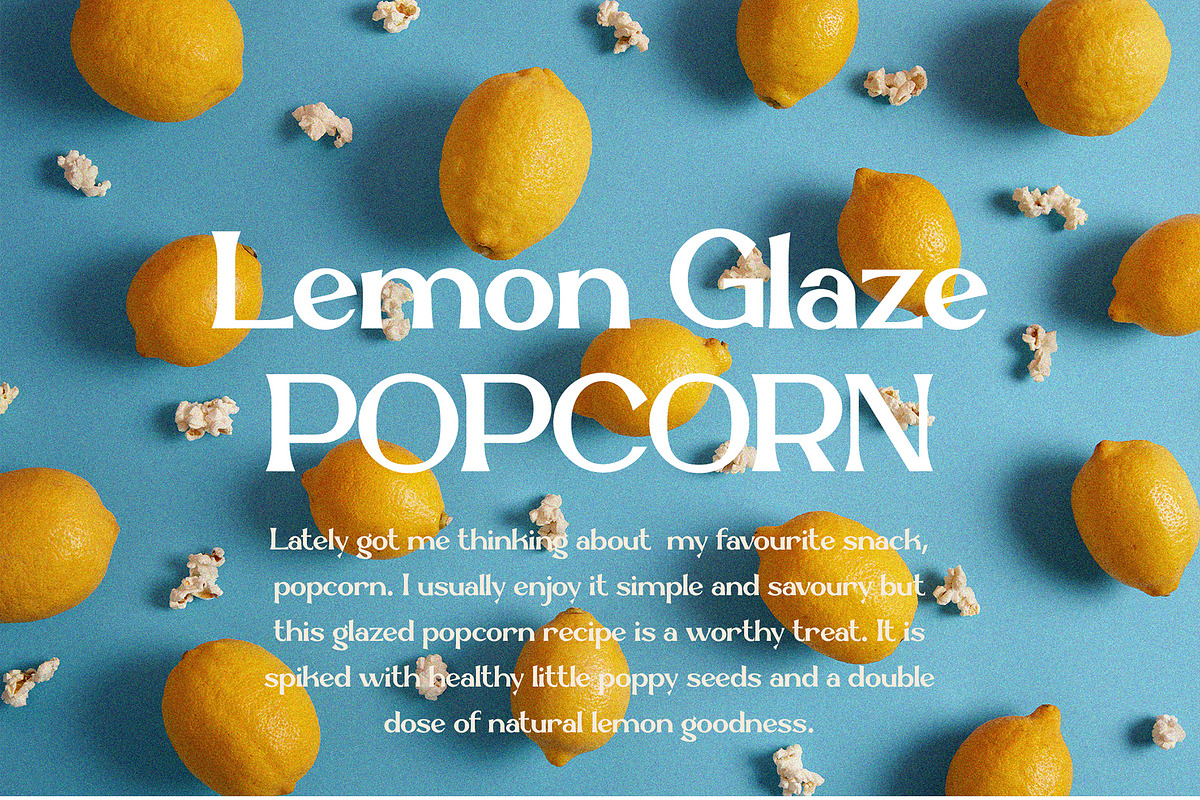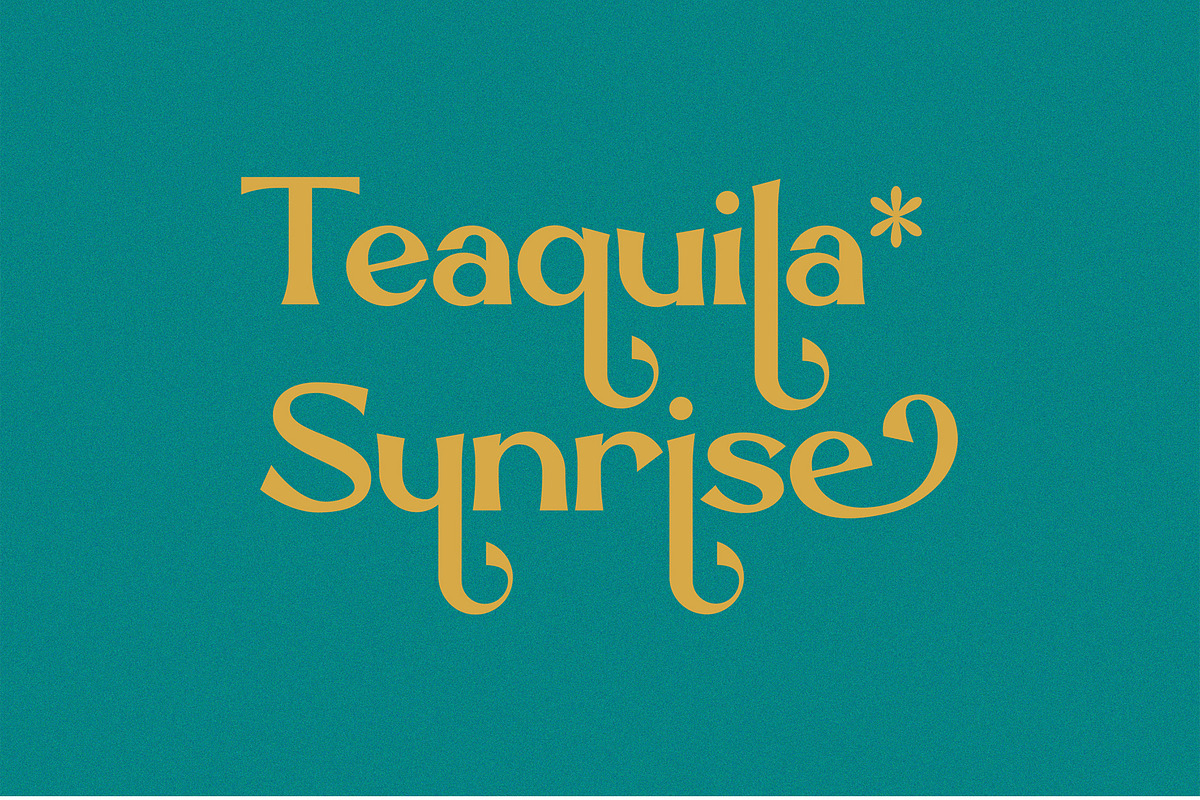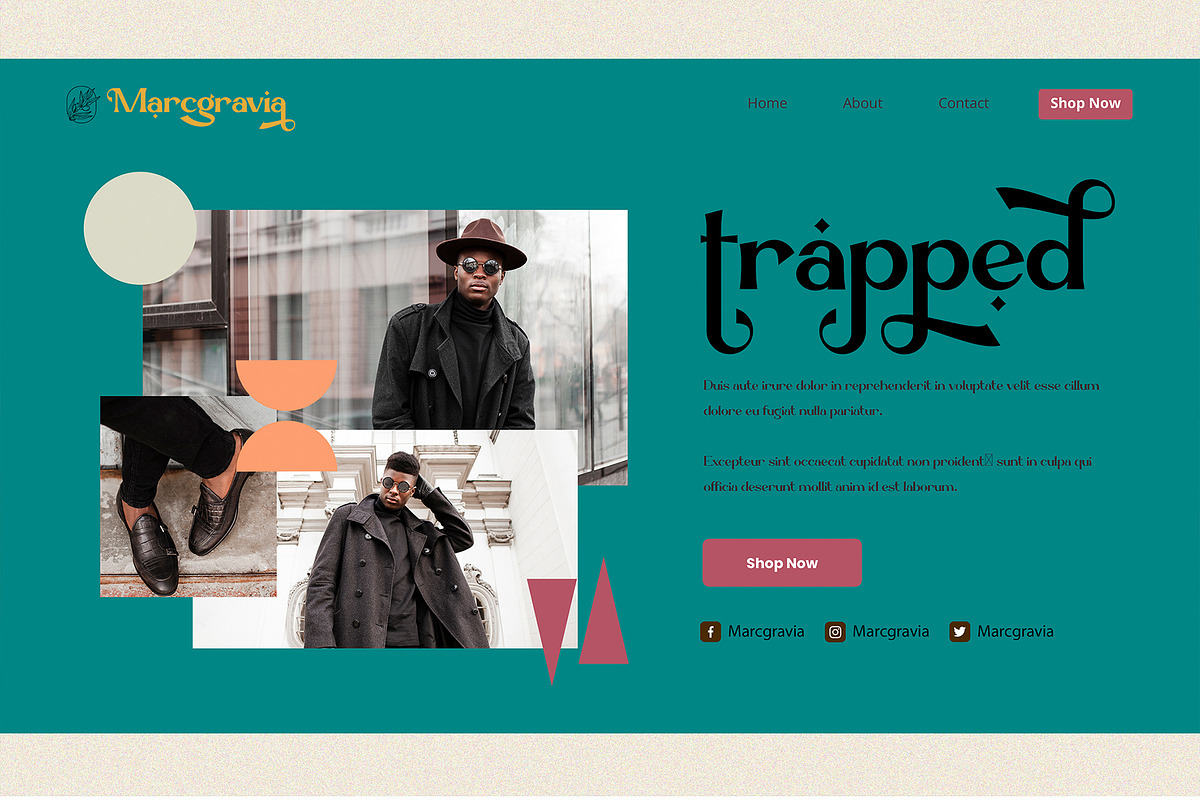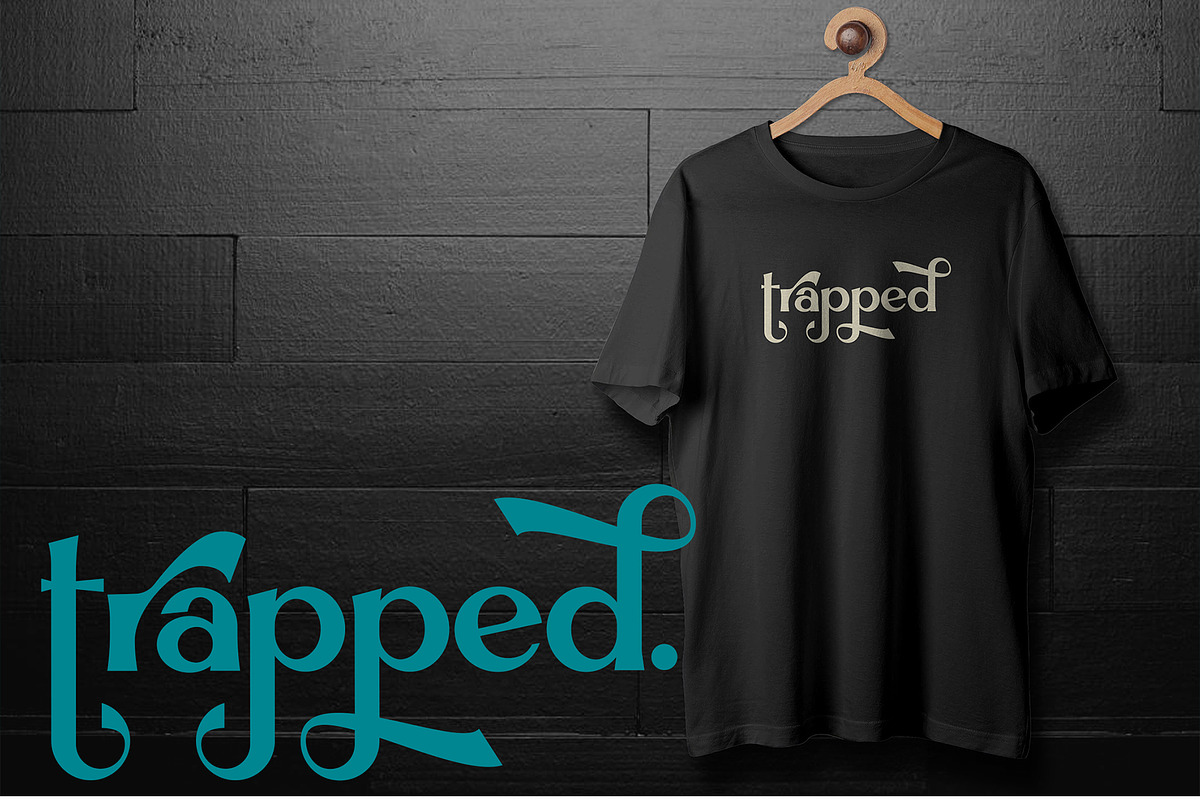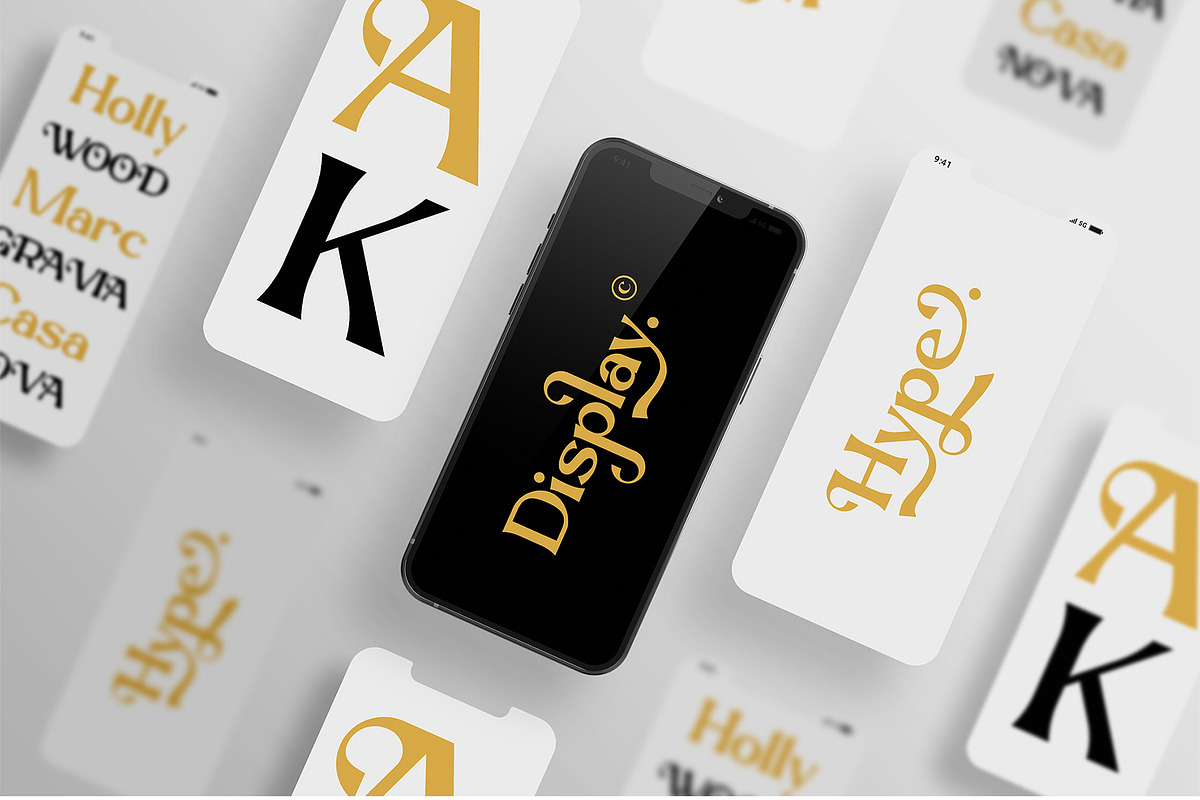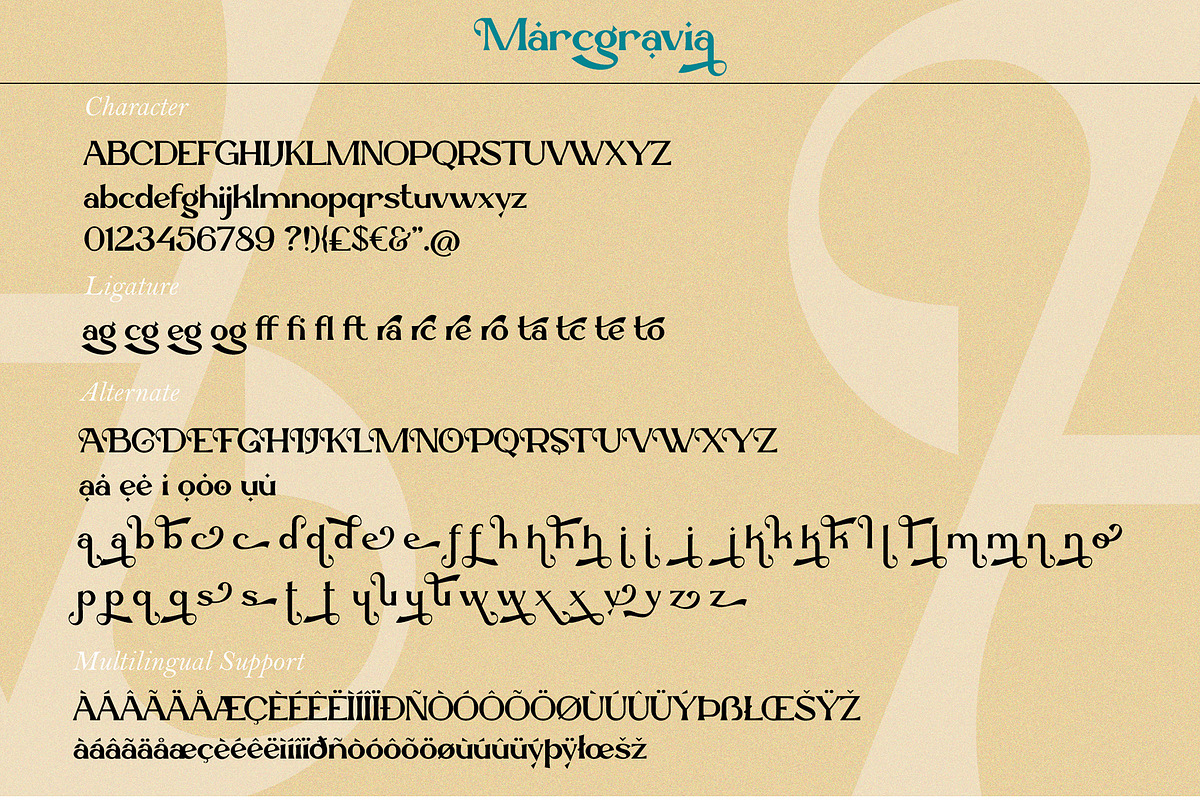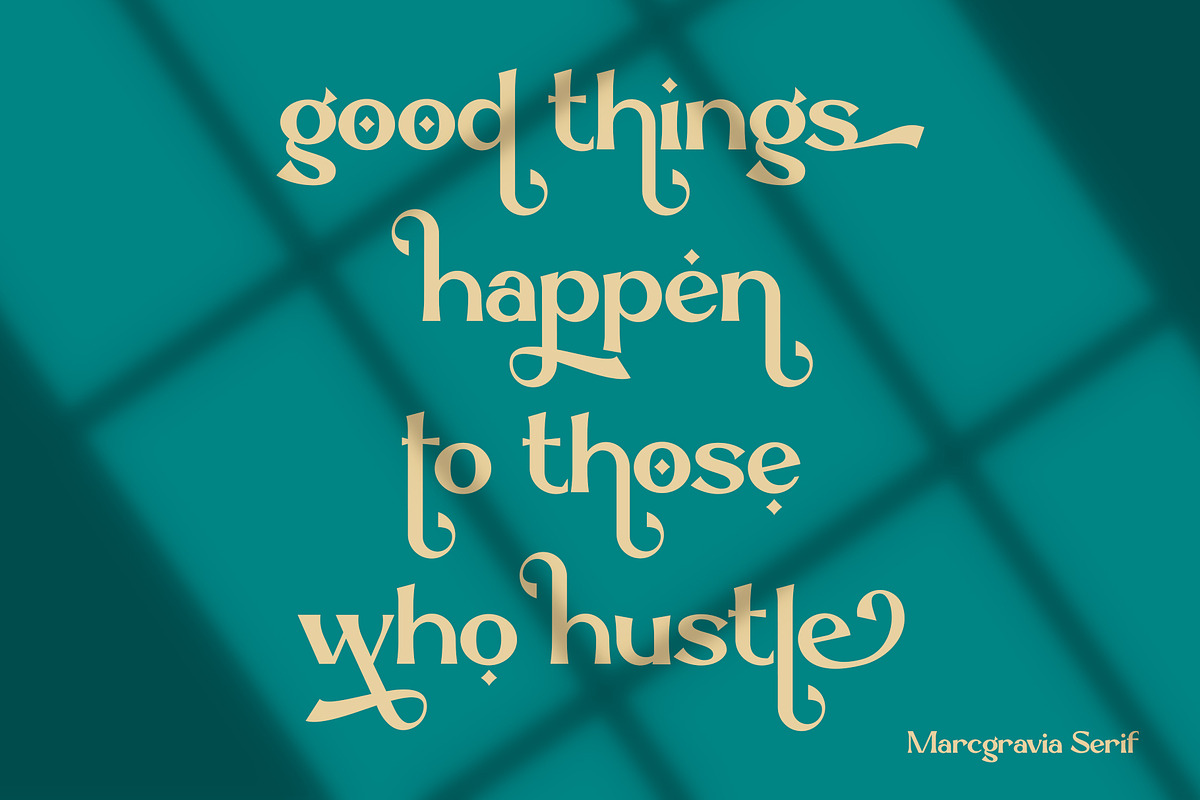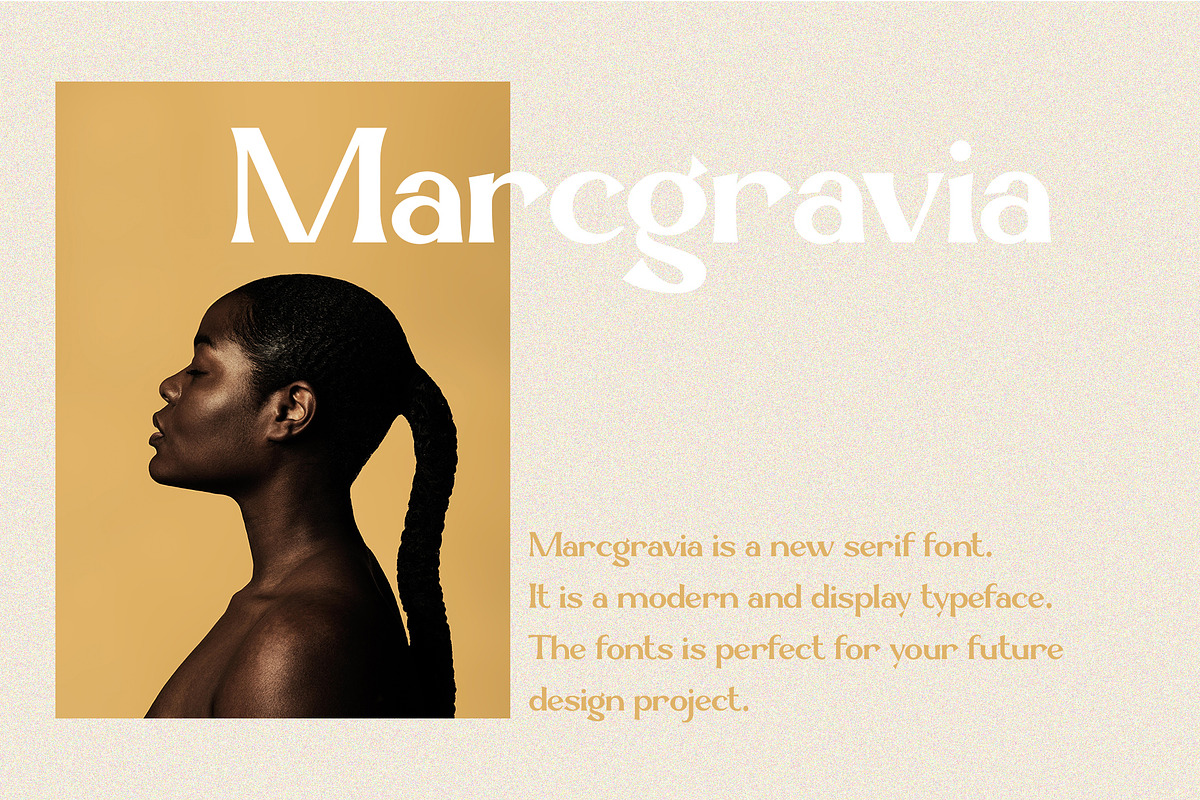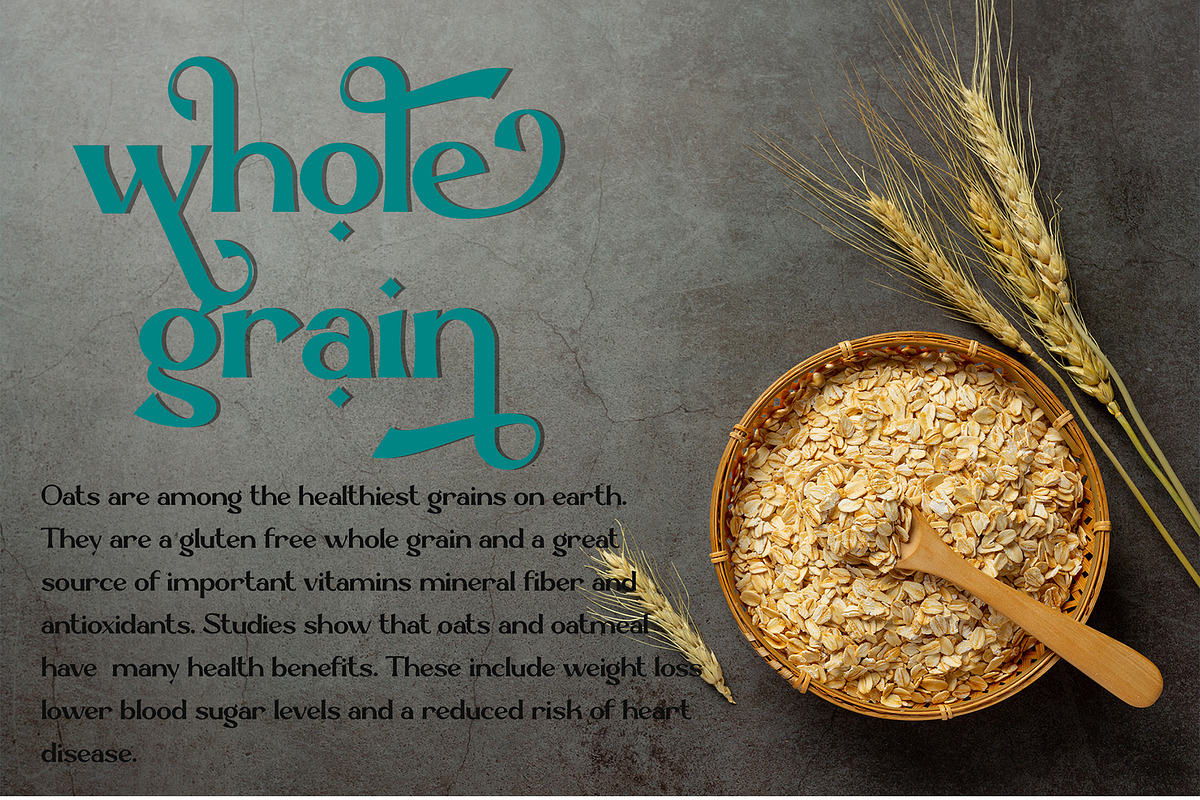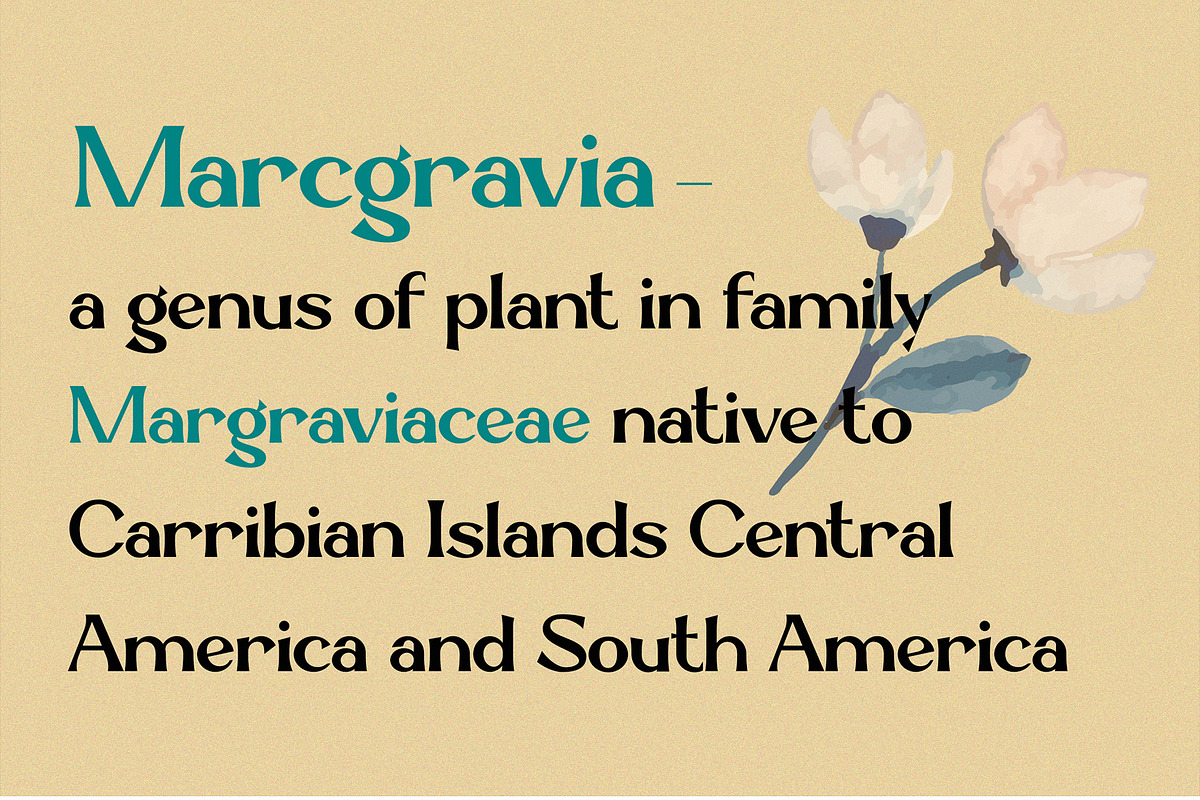
Marcgravia - Modern Serif
Marcgravia - Modern Serif by erlosDESIGN
Marcgravia is a stylish and detailed display font. It will add a luxury spark to any design project that you wish to create! This font is PUA encoded which means you can access all of the amazing glyphs and ligatures with ease!